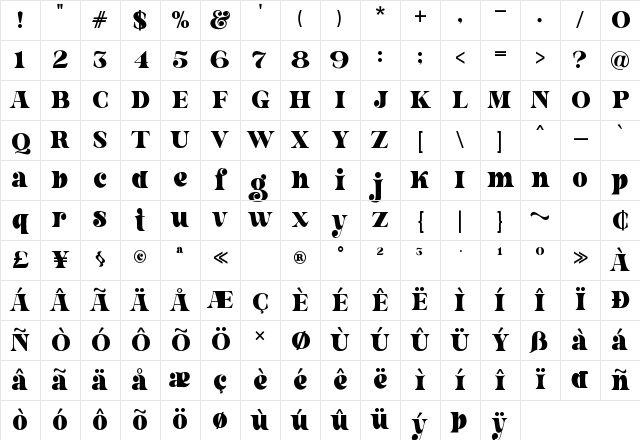
Letter Magic Regular Free Font
Letter Magic Regular
Foundry: HansCo
Designer: Burhan Afif
Design Context for Letter Magic
Letter Magic is a composed and adaptable typeface that performs quietly and consistently across a wide range of design contexts.